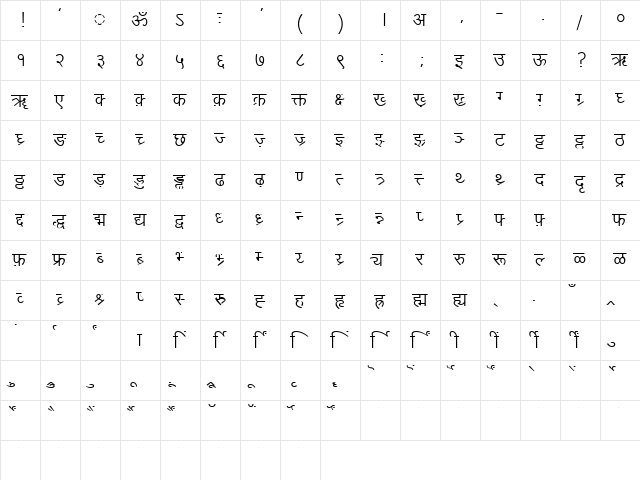
DVW-TTYogesh Normal
Design Context for DVW-TTYogesh Typeface
DVW-TTYogesh is a composed and adaptable typeface that performs quietly and consistently across a wide range of design contexts.